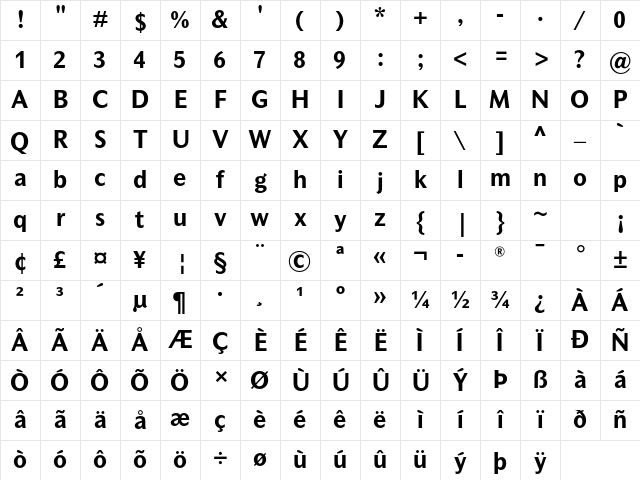
Mahsuri Sans MT Std Bold
Foundry: Agfa Monotype Corporation
Design Context for Mahsuri Sans MT Std
Mahsuri Sans MT Std is a composed and adaptable typeface that performs quietly and consistently across a wide range of design contexts. Its bold stroke weight gives it real presence on the page.